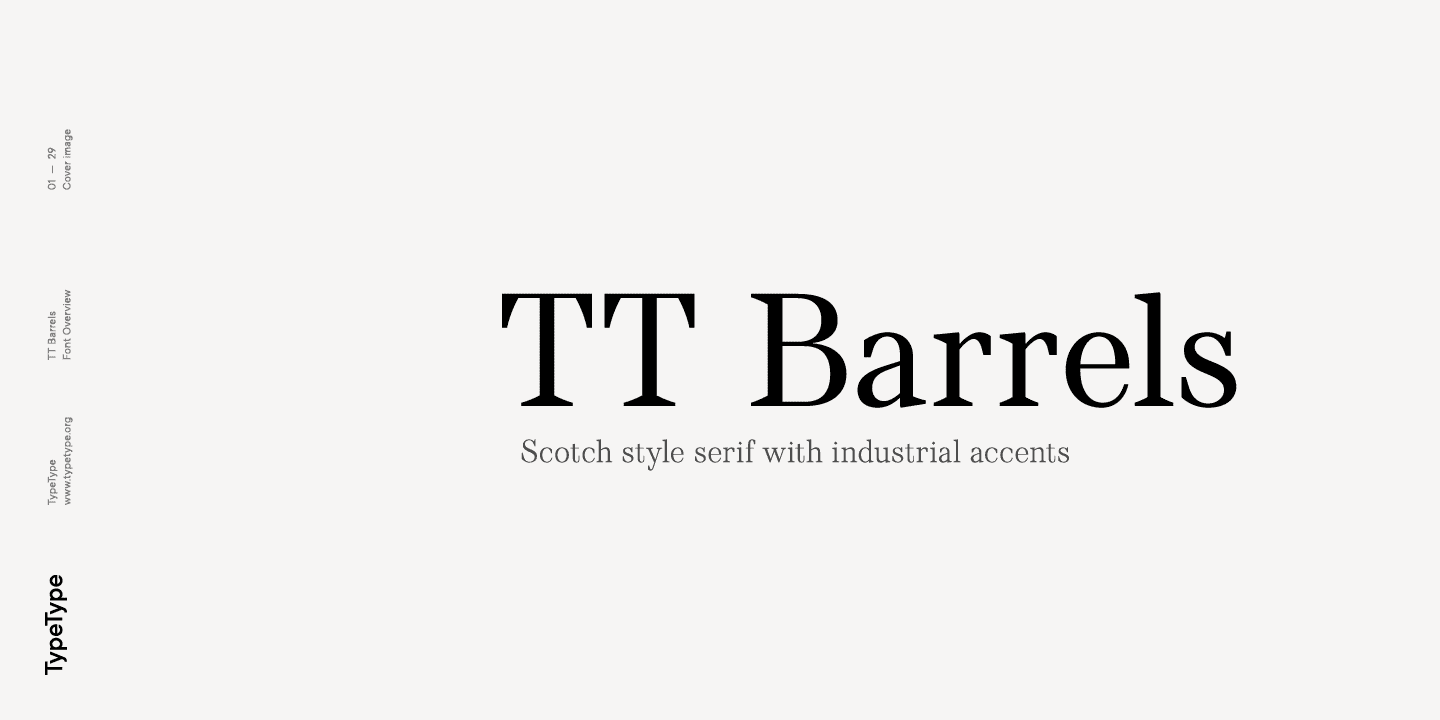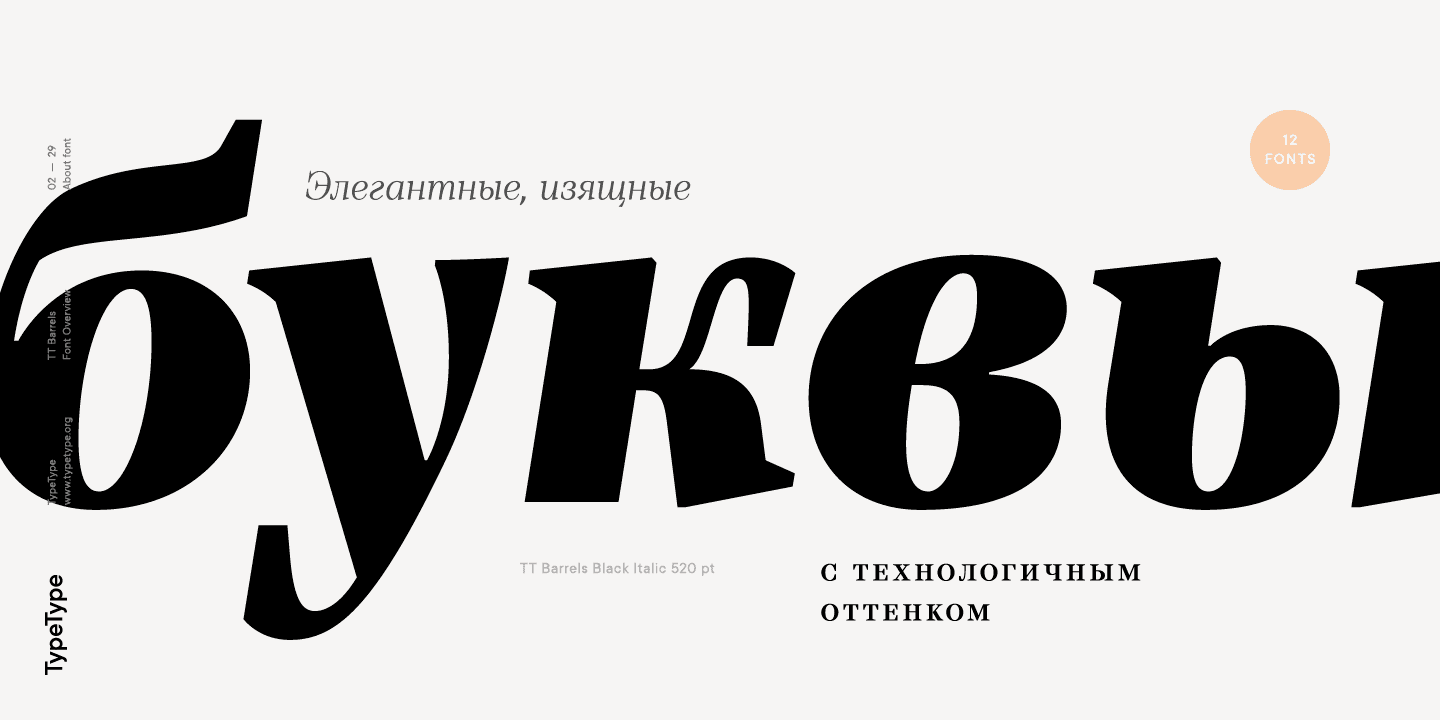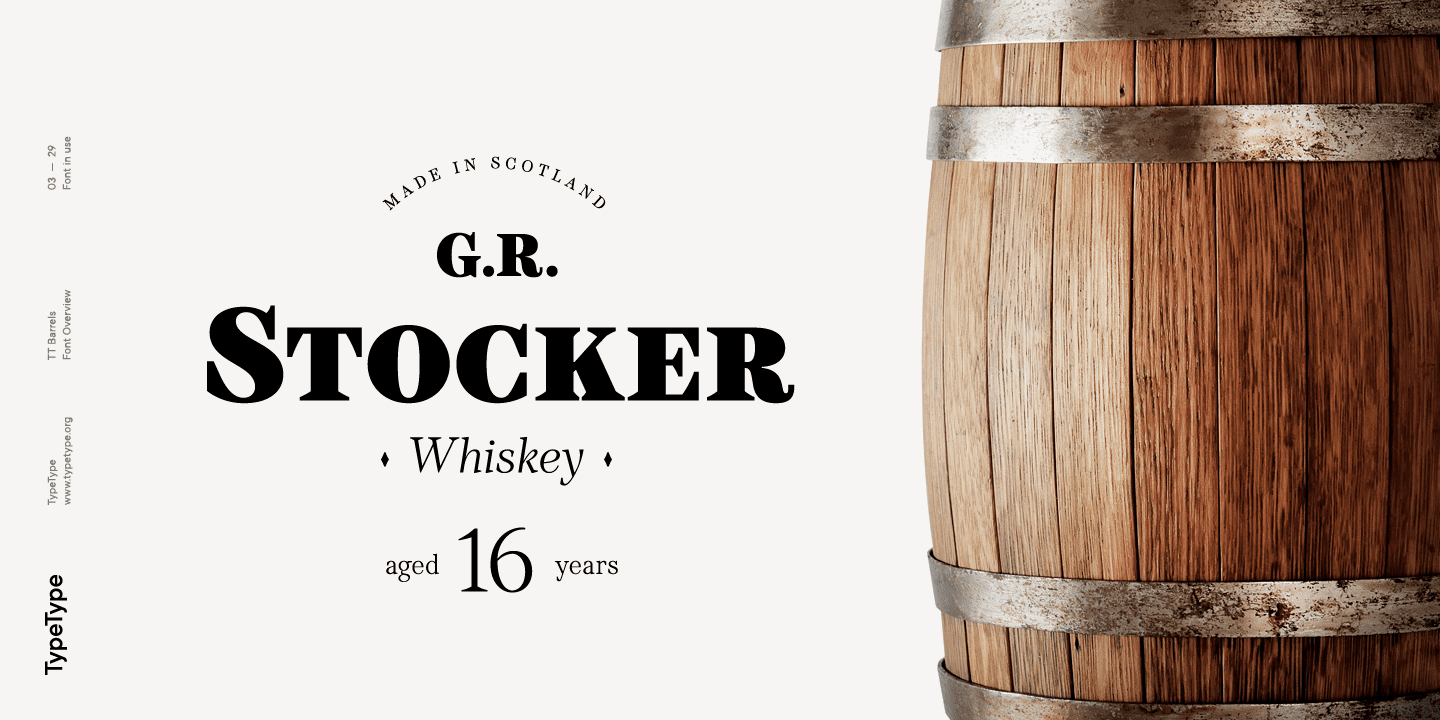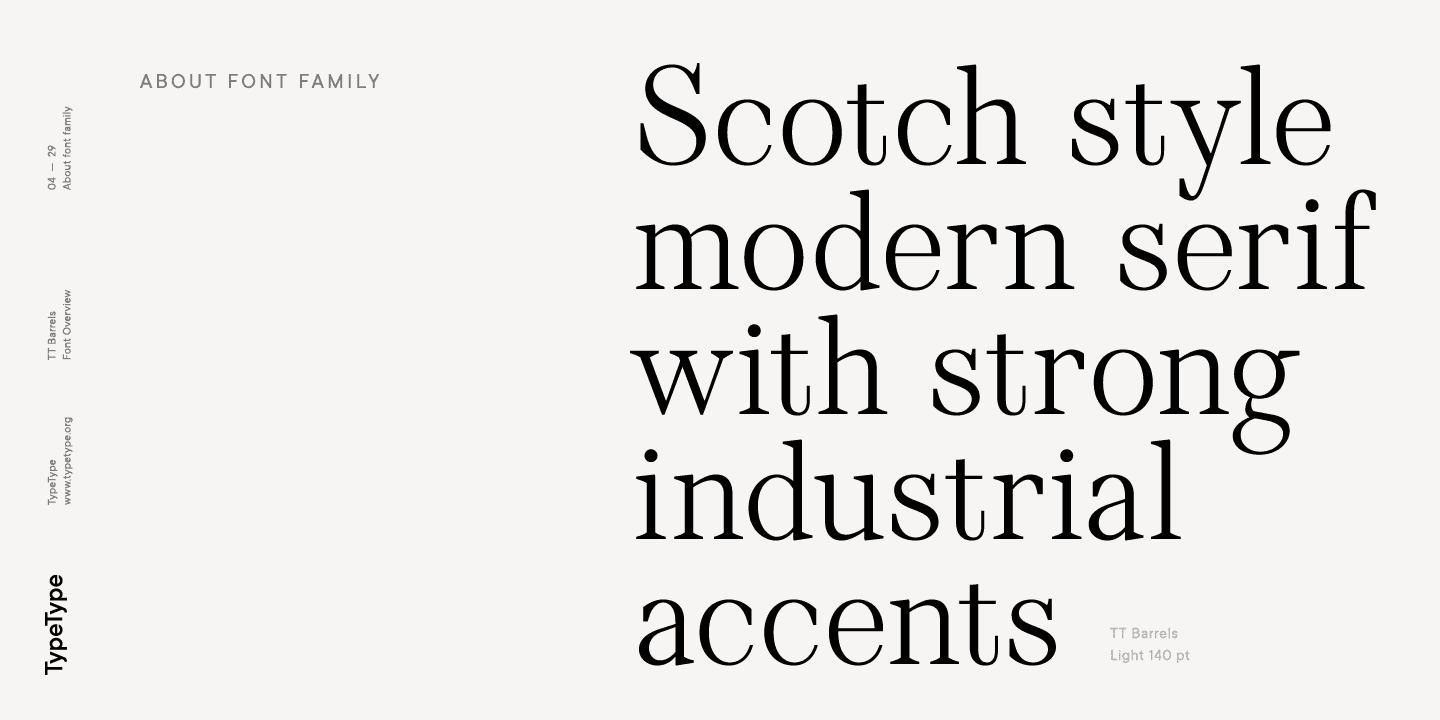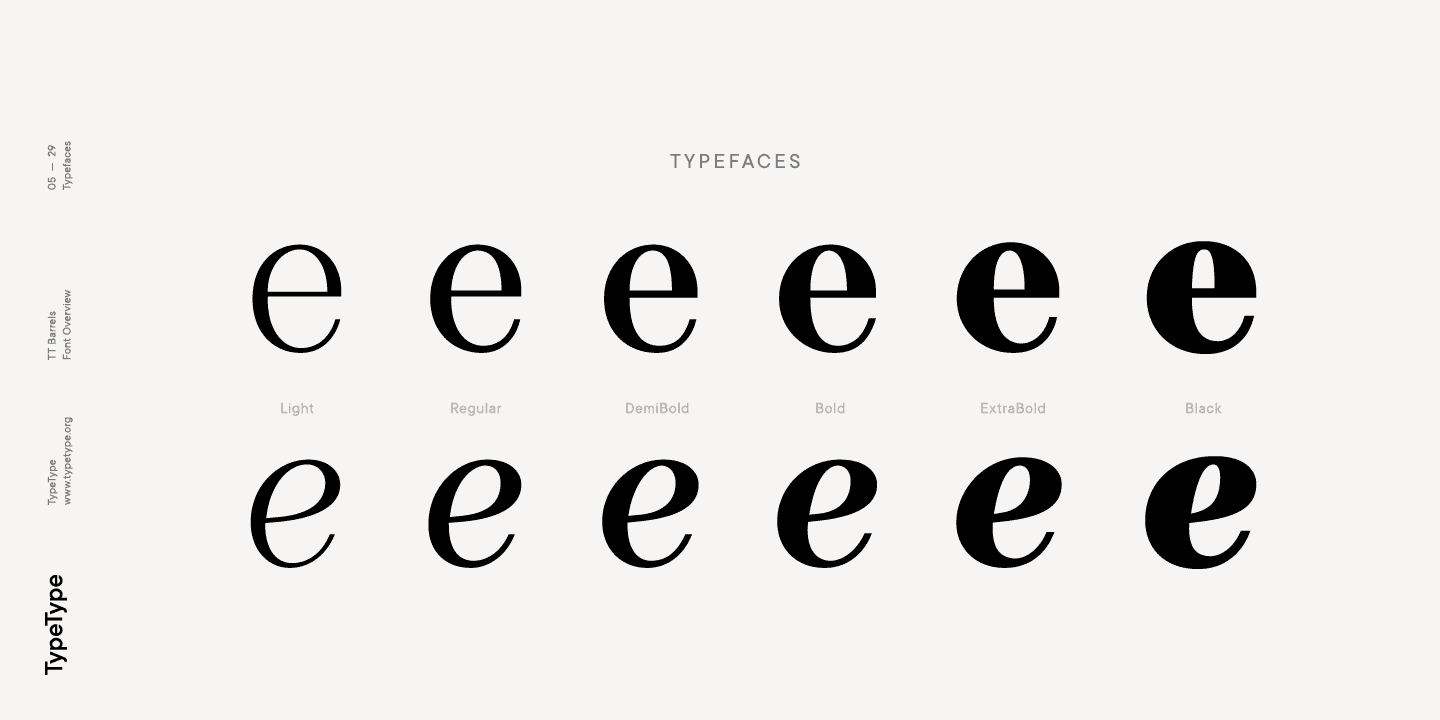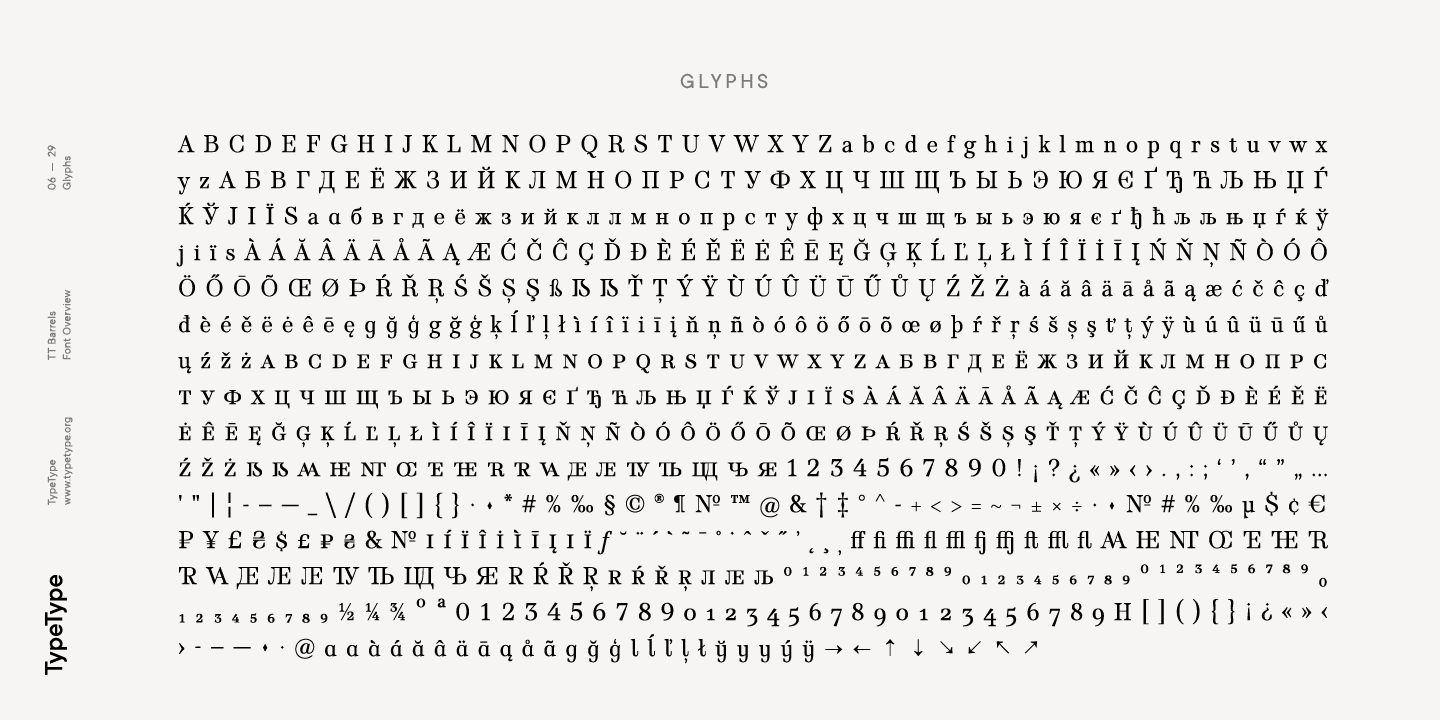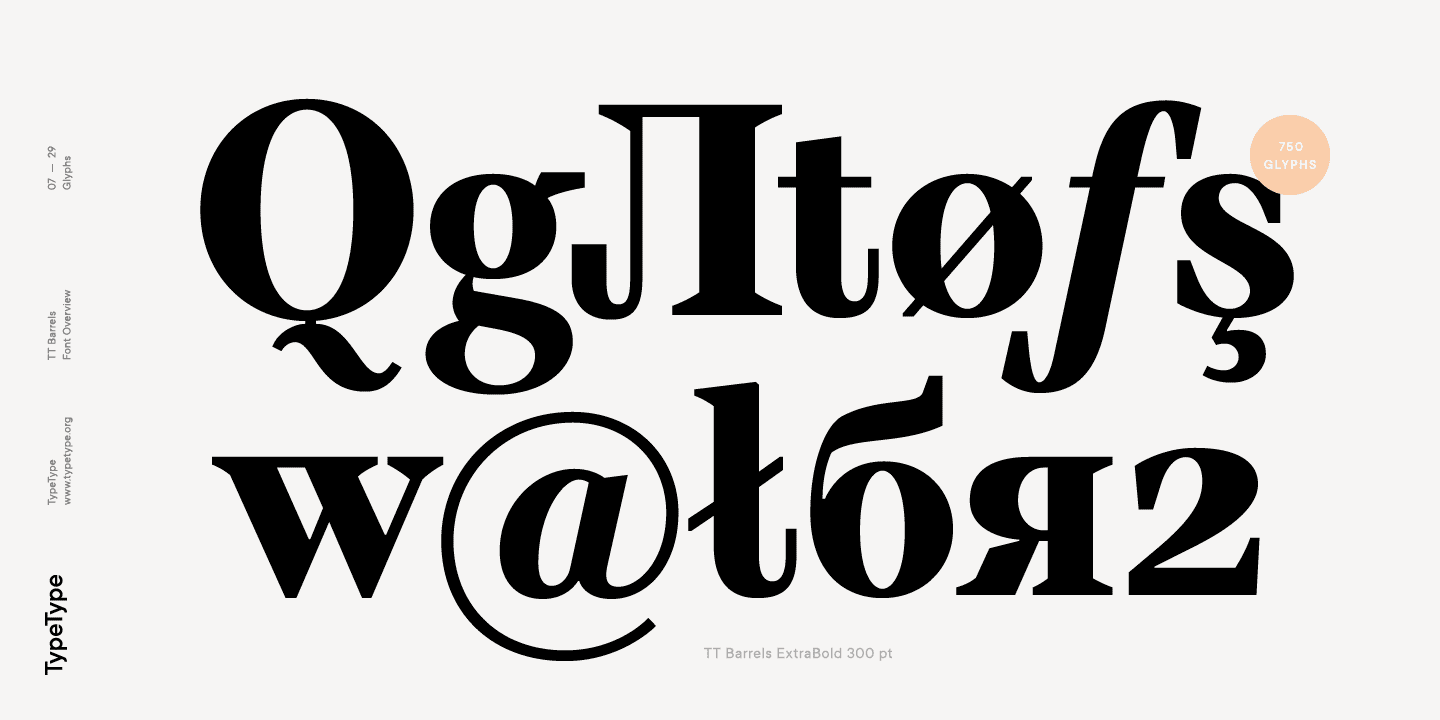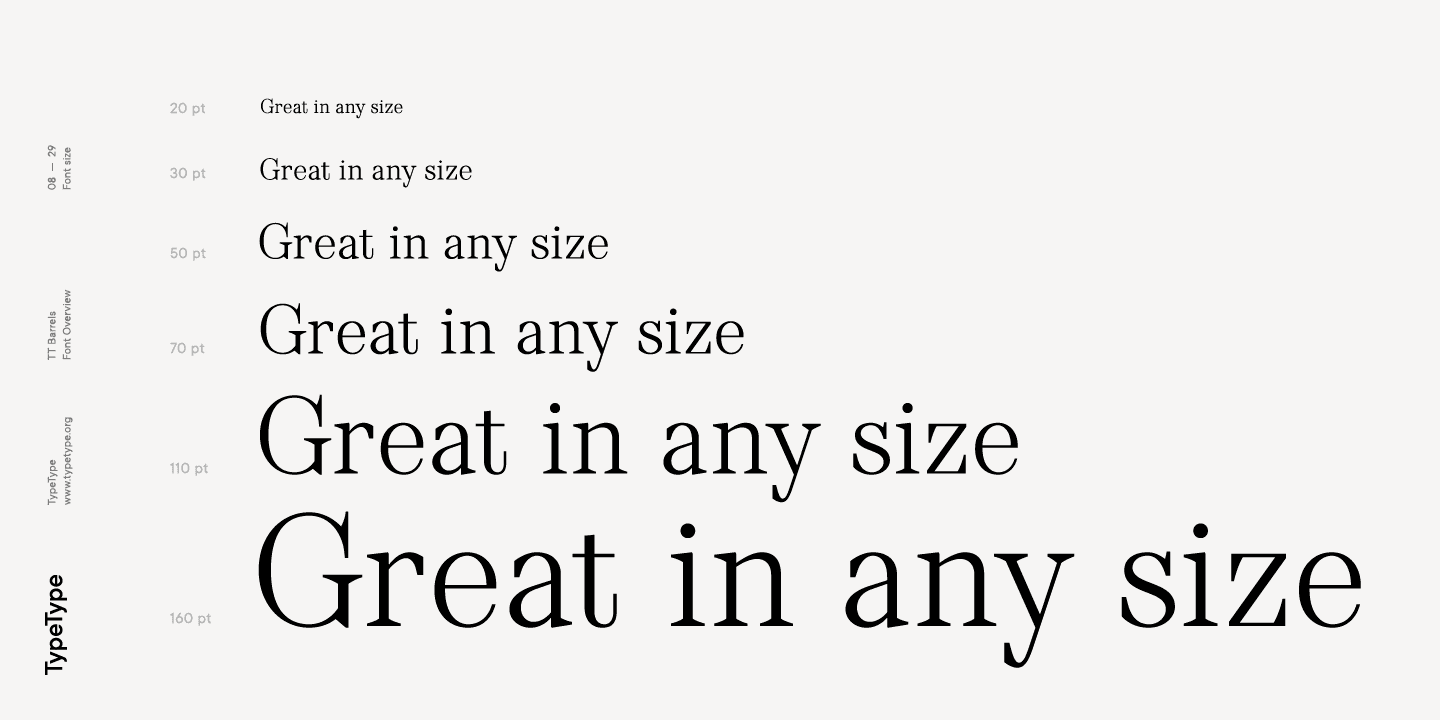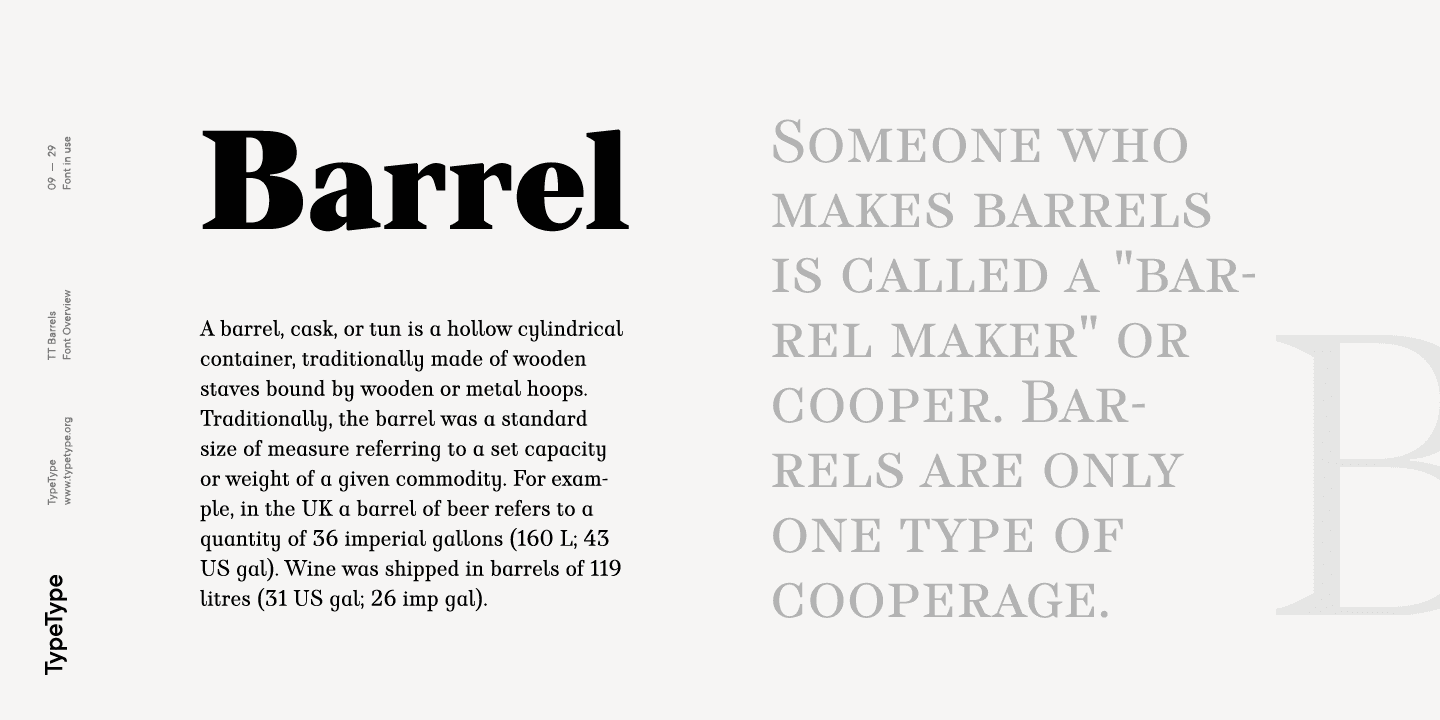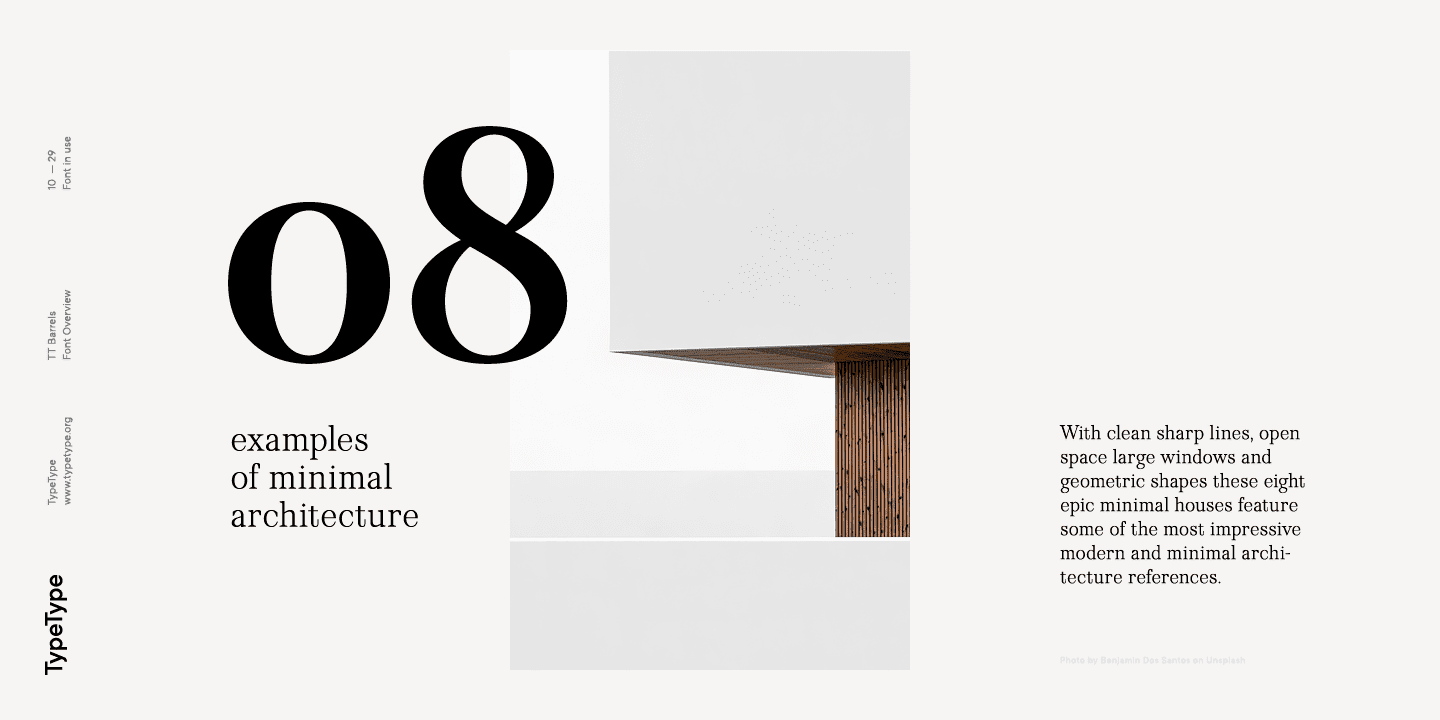
TT Barrels Family (12 fonts)
In the process of designing and sketching, we reconsidered certain aspects and abandoned some of the requirements imposed by the technology of metal letter pressing, for example, from the extensive application of visual compensators, the decreased strokes contrast, and the hyperdeformation of individual letter elements to preserve a more pronounced rhythm of these elements. First of all, we wanted both to maintain the ease of reading for the entire text array and follow the rules of aesthetics of each letter in the typeface, while still leaving some influence of industrialism. In the end, this influence is best manifested in serifs, which are quite massive and have a technologically exaggerated wedge shape.
TT Barrels consists of 12 fonts: Light, Regular, DemiBold, Bold, Extrabold, Black and the corresponding Italics. Each outline consists of more than 750 glyphs and includes small capitals, ligatures (for Latin and Cyrillic alphabets), stylistic alternates, old-style figures, and many other useful features. The full list of OpenType features: ordn, c2sc, smcp, case, frac, sinf, sups, numr, dnom, tnum, onum, lnum, pnum, dlig, liga, calt, salt (ss01).